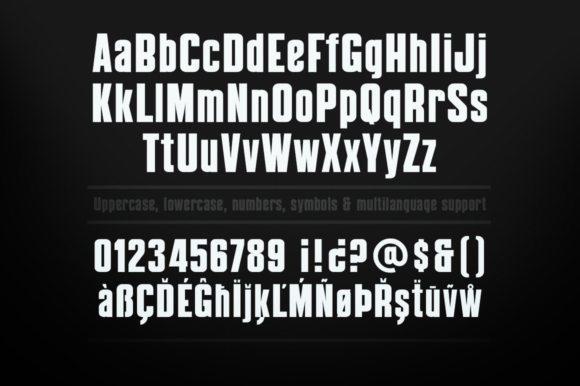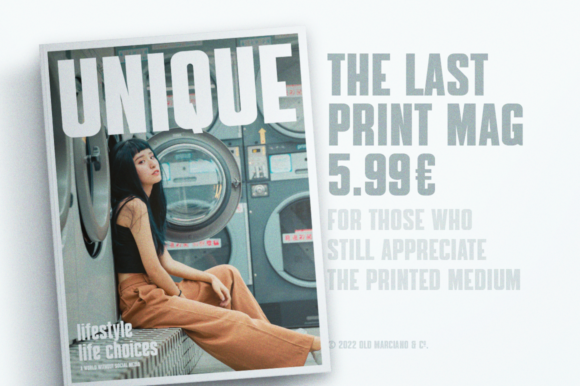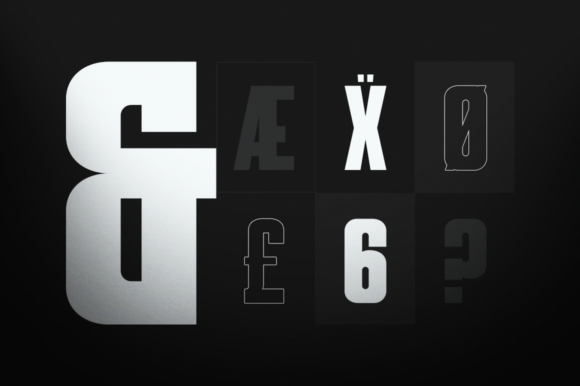
Introduction to Noticia Font
Remember the moment when you stumble upon the perfect design element for your creative project? It’s like a breath of fresh air, and suddenly everything falls into place. For designers, finding the right font can be a game-changer. And that’s exactly what the Noticia Font offers – a unique touch that can elevate your web designs, business cards, or any other project you’re working on.
Noticia Font is a cool, bold, and simple lettered display font that’s perfect for designers who crave a high-quality design resource. Its free download feature makes it an attractive option for those looking to experiment with different designs without breaking the bank. Plus, with its transparent background, you can easily incorporate it into your projects and make it stand out.
Key Features of Noticia Font
- High-quality font with a modern and sleek design, perfect for creative projects and design resources.
- Designed with a clean and minimalist aesthetic, ideal for use in logos, headings, and body text.
- Supports a wide range of languages, including Latin, Cyrillic, and Greek alphabets, making it a versatile design resource.
Honest Review: Noticia Font
I recently came across the Noticia Font while searching for a design resource for a creative project, and I was pleasantly surprised by its quality. The free download option made it an attractive choice for a client who was looking for a budget-friendly solution.
What works well: ✨ The Noticia Font has a modern, sleek design that makes it perfect for use in digital applications. It’s also highly legible, even at small font sizes. The transparent background option allows for seamless integration with any background design.
- High quality: The Noticia Font is a high-quality design resource that is sure to elevate any creative project.
⚠️ However, I did encounter some limitations with the Noticia Font. The font family is relatively small, which may limit its versatility in certain design applications. Additionally, the font may not be suitable for use in print materials, as it’s primarily designed for digital use.
Overall, I’m impressed with the Noticia Font and would recommend it to designers who are looking for a high-quality, free design resource for their creative projects.
Common Use Cases for Noticia Font
The Noticia Font is perfect for creating titles, headings, and other text elements in a variety of design projects, including infographics, posters, and business cards.